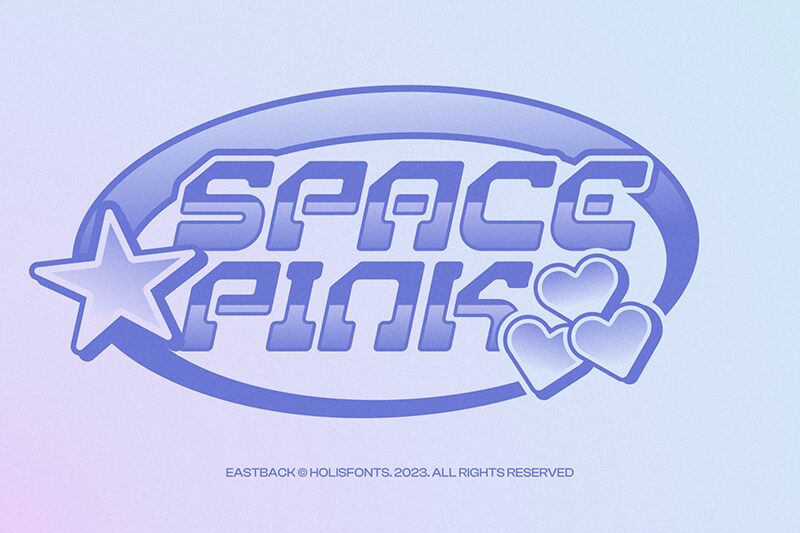
Eastback
Eastback font is a futuristic lightweight expanded display variation designed by Holisfonts.com. The typeface is inspired by retro typography style, modern geometric shapes, industrial feel, and impactful modular appearance. It consists of only uppercase and lowercase alphabet letters; however, you can make great use of its combination in plenty of projects.